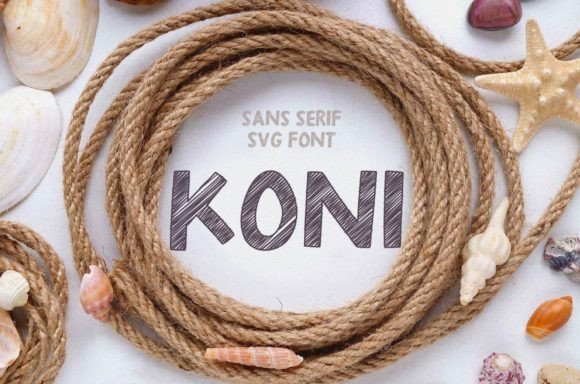
Koni: A Natural Sans Serif for Digital Branding
As a UI designer who ships dozens of landing pages, SaaS dashboards, and e-commerce sites each year, I don’t reach for fonts based on trend alone—I look for typographic reliability. Koni stands out not because it’s loud or experimental, but because it’s quietly confident: a natural sans serif with organic rhythm, clean proportions, and subtle warmth that translates beautifully across screens.
Koni isn’t built for maximalism—it’s designed for intention. Its letterforms carry gentle curves inspired by natural forms—think smooth river stones, unfurling leaves, or soft-edged architecture—not rigid geometry. The x-height is generous without crowding, counters are open and airy, and stroke contrast is minimal but perceptible. That balance makes Koni highly legible at small sizes on mobile, yet distinctive enough to anchor a hero headline or logo lockup on desktop.
In practice, Koni excels where clarity and character intersect. I use it most often for hero section headlines, CTA buttons, product name tags, and brand-driven content sections—especially when the goal is to signal approachability without sacrificing polish. It works powerfully in boutique online stores (think ceramic studios, slow-fashion labels, wellness brands), coaching websites that emphasize authenticity, and course sales pages where tone must feel human first, conversion-second.
For visual hierarchy, Koni shines as a display font—not body copy. Its medium and bold weights deliver strong contrast against neutral sans serifs like Inter or system fonts for paragraph text. On a portfolio site, I’ll set the project title in Koni Bold (28–42px), subhead in Inter SemiBold (18–20px), and body in Inter Regular (16px). That rhythm guides the eye without shouting. On dark backgrounds, Koni’s even ink distribution prevents haloing; over subtle image overlays, its clean shapes maintain readability without needing heavy drop shadows.
Mobile responsiveness is where many decorative sans serifs falter—but Koni holds up. At 20px on iOS Safari or Android Chrome, spacing remains comfortable. I avoid using it below 16px for interface labels (buttons, filters, nav items), but at 18px+, it reads cleanly—even in condensed contexts like sticky headers or mobile cart badges. Its OpenType features include standard ligatures and localized glyphs, supporting English, Spanish, French, German, and Portuguese natively. Webfont files are available in WOFF2 format, optimized for fast loading and supported across all modern browsers.
Pairing Koni thoughtfully unlocks its full potential. For digital products with editorial weight—like newsletters, knowledge bases, or blog-driven SaaS tools—I pair it with a crisp, low-contrast serif like IBM Plex Serif or Charter. Koni handles headlines and pull quotes; the serif grounds long-form reading. For minimalist brand kits (think fintech dashboards or design tool interfaces), I combine Koni Medium with Manrope or Figtree—both highly legible, variable sans serifs that share Koni’s clarity but add functional neutrality where needed.
Crucially, Koni avoids the trap of “too much personality.” Unlike script or ultra-thin display fonts, it doesn’t compete with content—it elevates it. On a product landing page, Koni in all-caps at 48px creates instant recognition for the brand name, while smaller instances (e.g., feature bullets or testimonial attributions) retain warmth without visual noise. In social media graphics exported from Figma, it scales cleanly across Instagram carousels, LinkedIn banners, and email headers—no pixelation, no awkward kerning fixes.
Where Koni truly differentiates itself is in tone consistency. So many sans serifs default to either sterile neutrality (looking like every other SaaS dashboard) or forced quirkiness (distracting from core messaging). Koni walks the line: professional but not cold, distinctive but not distracting, modern but not fleeting. It supports trust—not by shouting authority, but by breathing space into layouts, aligning visual pacing with user intent.
I’ve used Koni in contexts ranging from a meditation app’s onboarding flow (where soft typography reduces cognitive load) to a sustainable packaging startup’s Shopify theme (where its natural inspiration reinforces brand values without illustration). In both cases, users didn’t notice the font—but they *felt* its effect: calm, clear, intentional.
If you’re selecting a sans serif for a digital brand that values substance over spectacle, Koni earns its place—not as decoration, but as infrastructure. It’s the kind of typeface that fades into the experience just enough to let the message land, while quietly reinforcing who you are.
- Avoid for: Long paragraphs, dense data tables, tiny interface labels (<14px), high-contrast accessibility-critical text (use tested system fonts instead)
- Pairing rule: Contrast personality with function—Koni for voice, a neutral sans or serif for utility